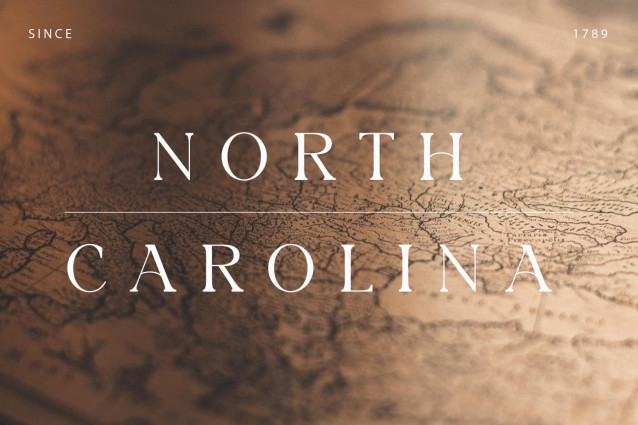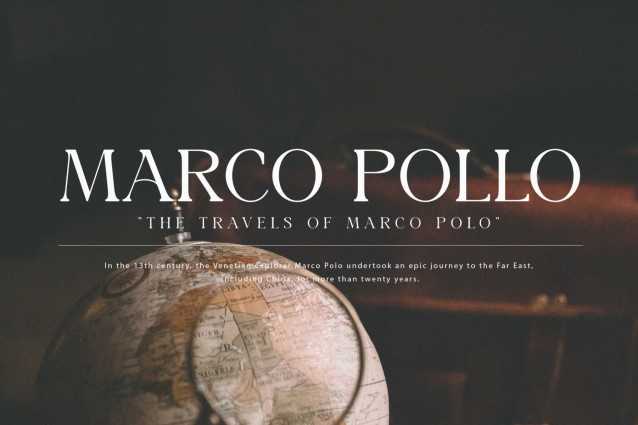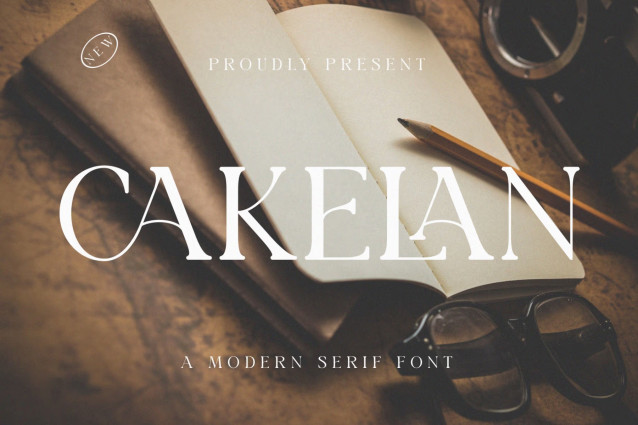
Introducing CAKELAN: An elegant and modern serif typeface. With its modern and minimalist appearance, CAKELAN brings a luxurious and clean style to your projects such as websites, modern logos, branding identities, social media quotes, wedding stationery, and various other things you need!
CAKELAN displays the capital letters A to Z which are unique and classy of course, because they were made with great care to make it a beautiful font and can be adapted to various large projects that you want.